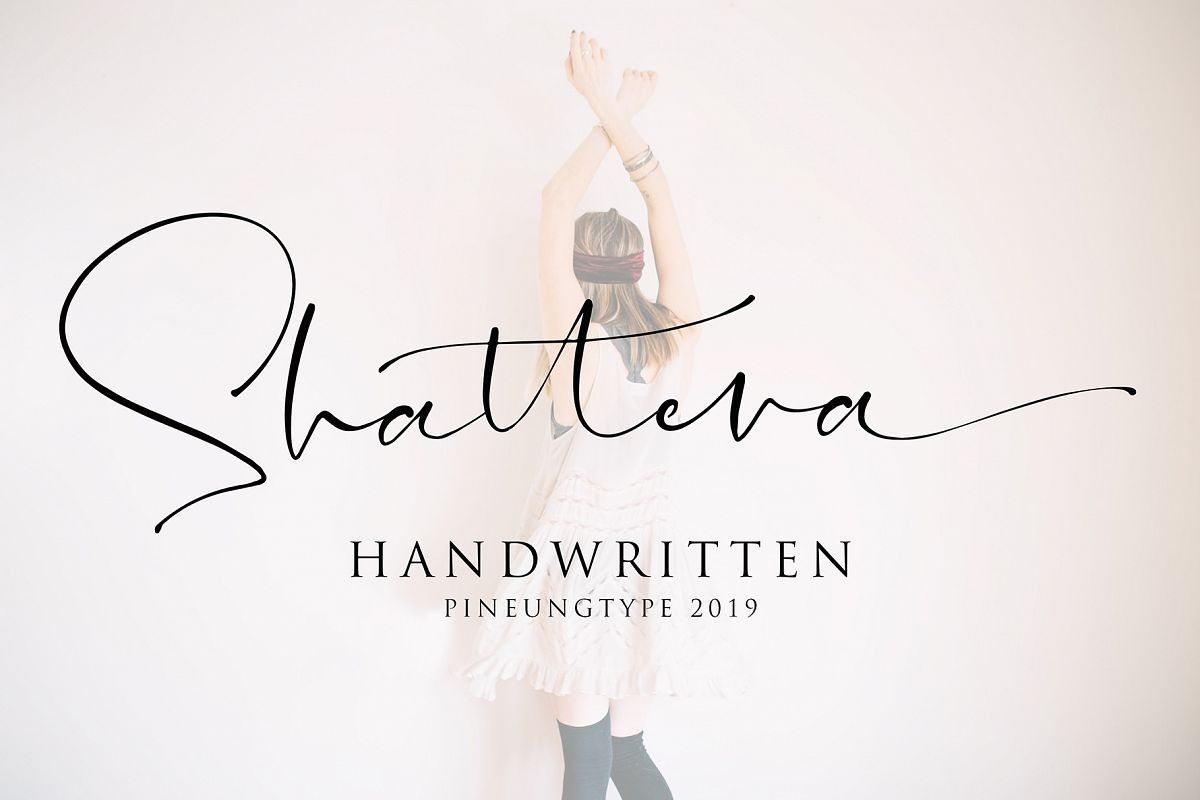
Shattera
Shattera handwritten, this font will perfect for many different project ex: quotes, logo, blog header, poster, banding, fashion, apparel, letter, invitation, stationery, etc...